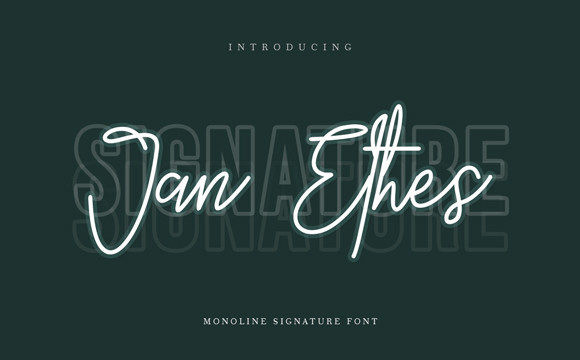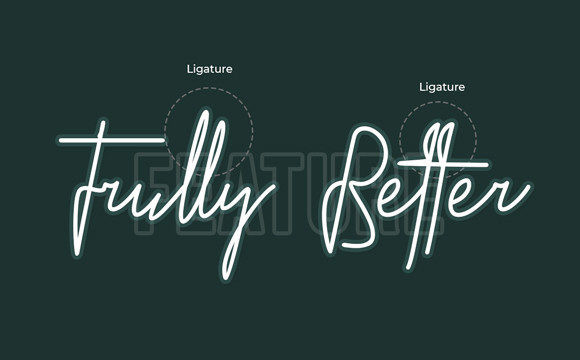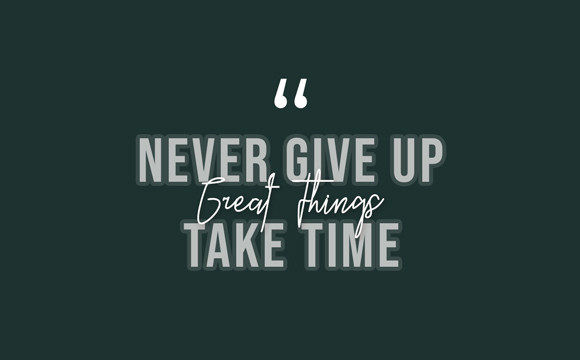
Jan Ethes Font
Jan Ethes is a lovely and delicate script font that exudes elegance and class. This font was particularly crafted for those who need a beautiful and refreshing look to their designs.